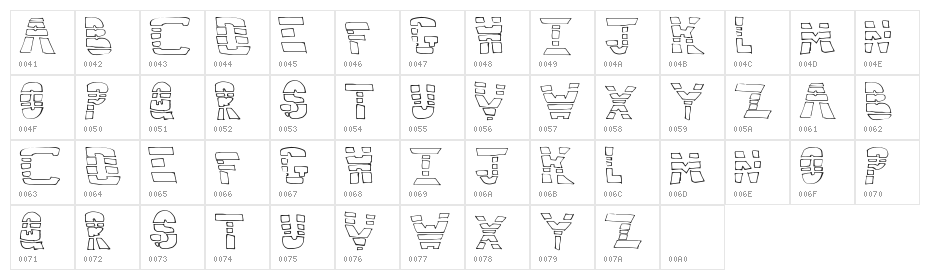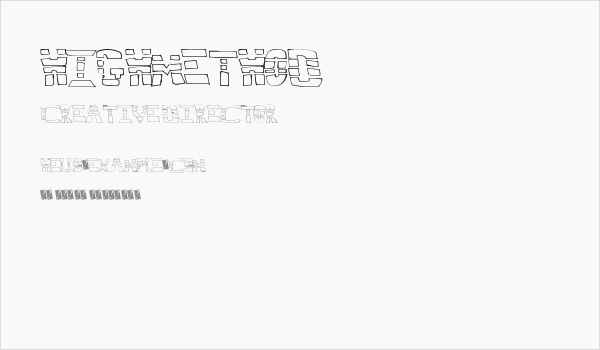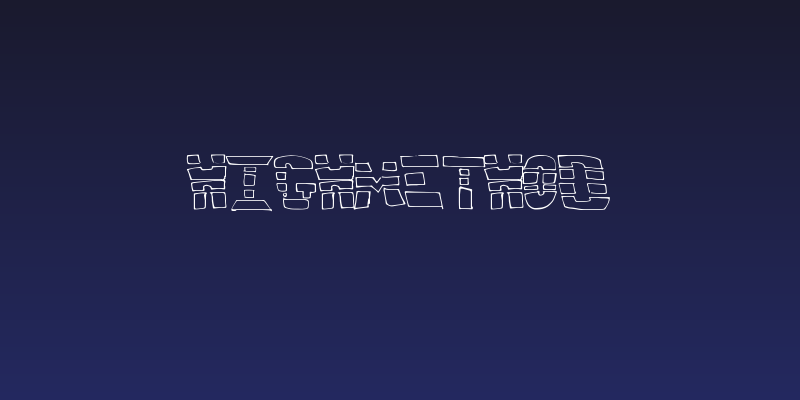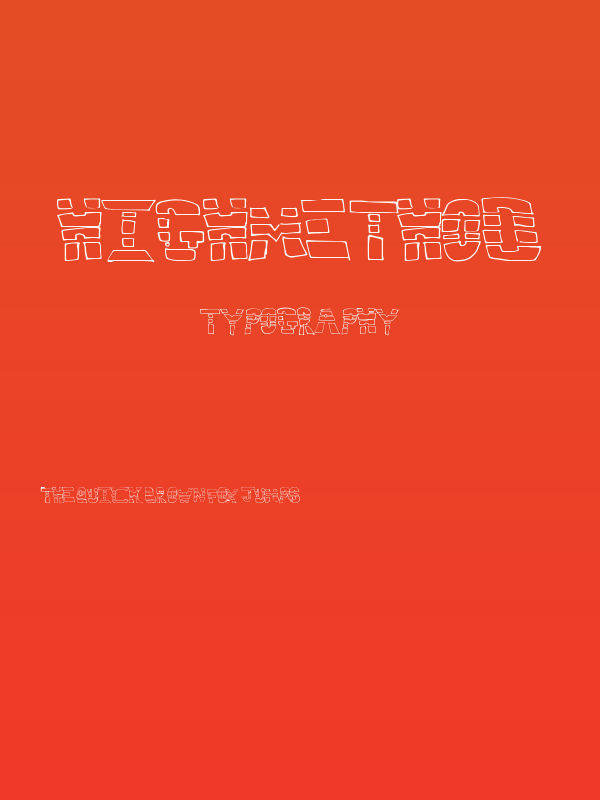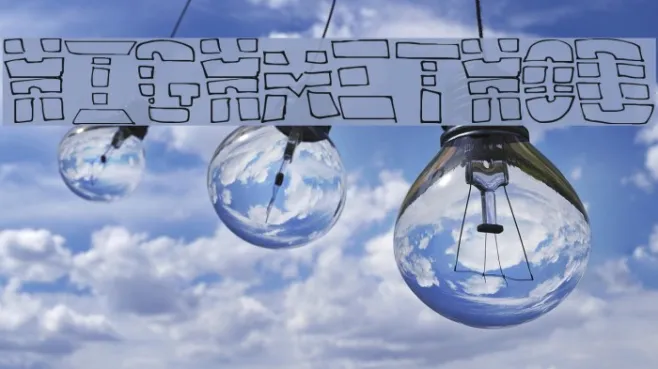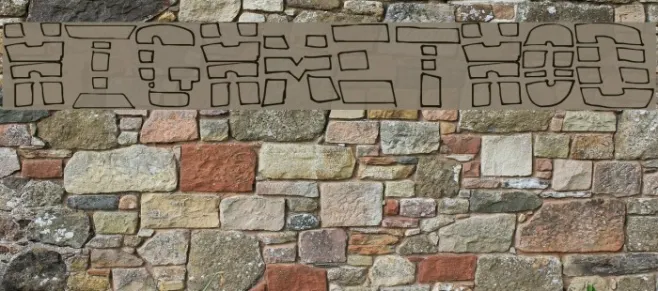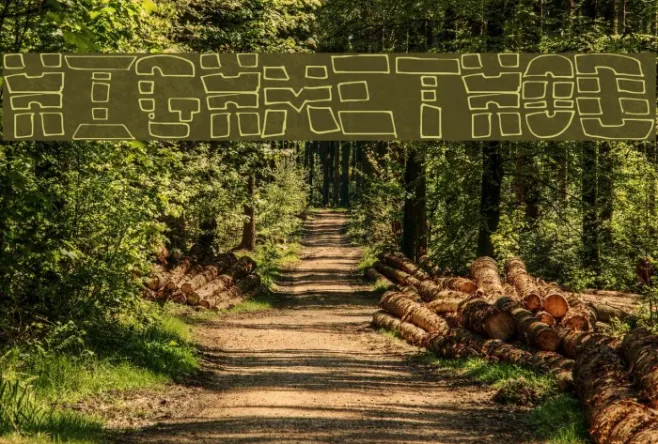
HighMethod Font
HighMethod Description
This font features a highly decorative and abstract design, with each character composed of fragmented, geometric shapes that create a unique, artistic appearance. The uppercase letters are bold and striking, with a sense of movement and energy. The lowercase letters mirror this style, maintaining the same fragmented and geometric aesthetic. The numbers and special characters follow suit, ensuring a cohesive look across all elements. This font is ideal for projects that require a modern and edgy feel, such as contemporary art pieces, album covers, or avant-garde branding.
| Proposed Projects | Album covers, contemporary art projects, avant-garde branding, and modern posters. |